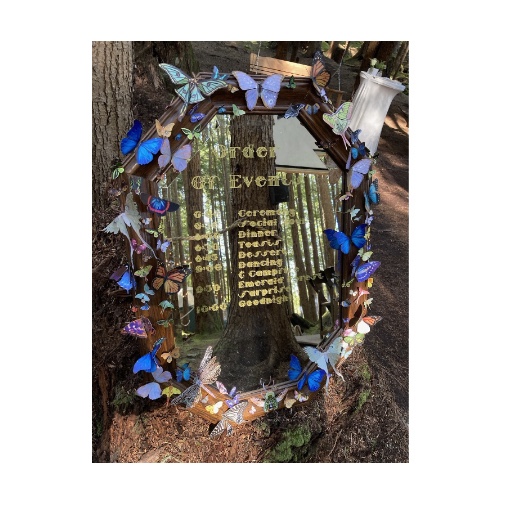
• This was a font made for the wedding of my brother and their fiance, many happy wishes for them and quite honored to have been able to design this for the occasion. Please enjoy~
It's very beautiful, but please make the right contrast in Xx, reflect them horizontally. For Y, you can turn a blind eye to this, but not to X.
Very nice font, very appropriate for the purpose for which it was created (a brother's beautiful wedding!). It's great ❤️. My congratulations on the well-deserved TP and my best wishes for that couple who is getting married to face a life together!
This font looks pretty nice, but I am not sure about the capital R as it overlaps with every single letter following it…
BWM, due to the level of filigree that was requested, there is some inevitable overlap
excuse me but the lowercase j doesn't have a dot
18man, yes, that is intentional and a personal preference of the bride
Calligraphy at it's max
Very elegant. 10/10
I love the look of this font. Excellent creation! This is lovely for a white wedding.